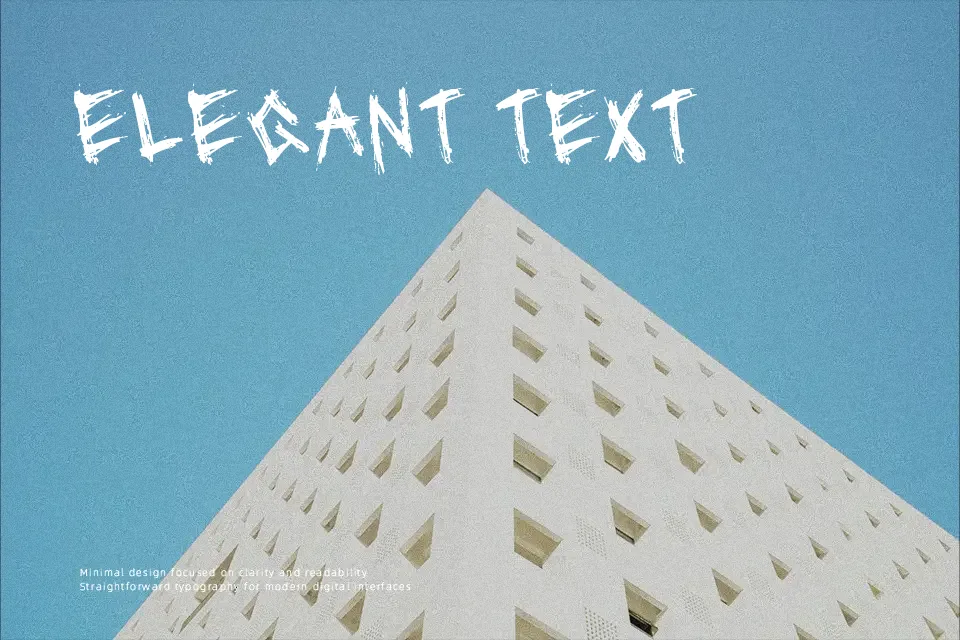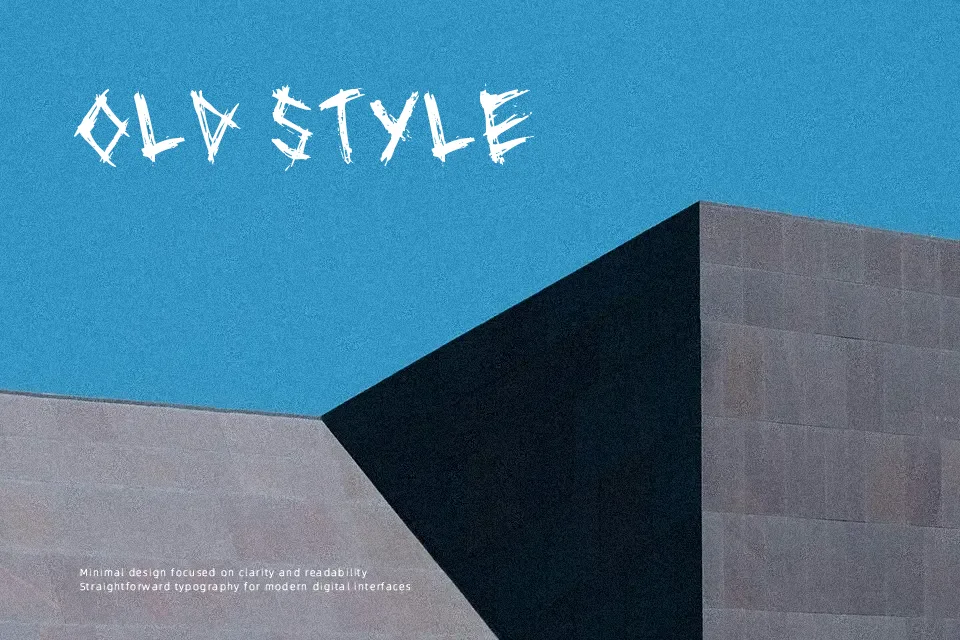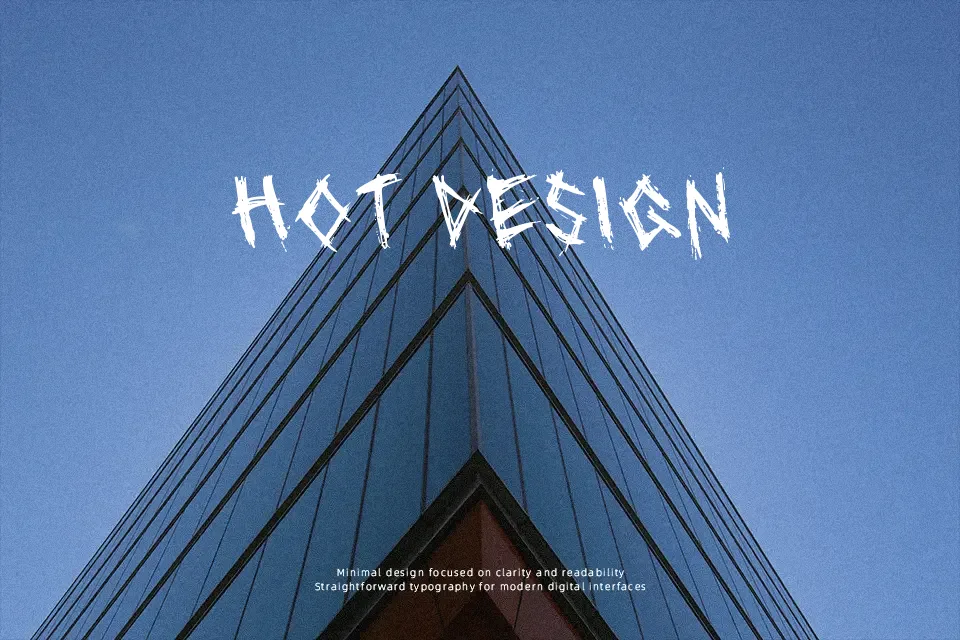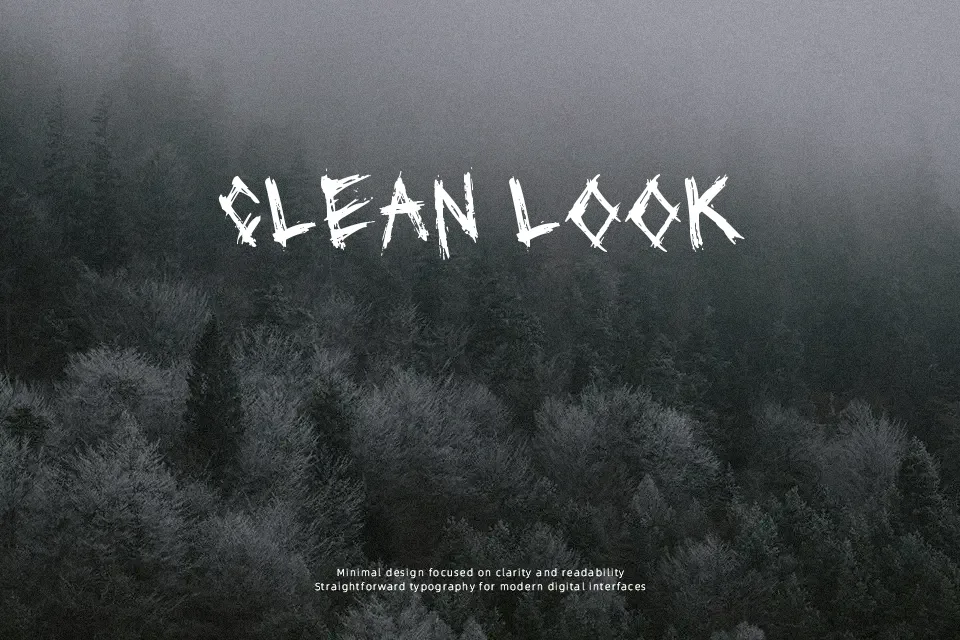
Blackcraft Font
Designed by GGBotNet
Blackcraft is an intensely dark, decorative display font that blends aggressive stroke structures with an ominous atmosphere. The letterforms feature jagged edges, sharp angles, and erratic weight distribution, mimicking the chaotic energy of horror and dark fantasy. With an impressive 570 glyphs, it offers extensive multilingual support across Latin and Cyrillic alphabets.
This typeface excels when commanding attention in large formats, making it highly effective for thriller movie posters, band logos, and immersive gaming graphics. Conversely, its complex and textured nature means it should be strictly avoided for lengthy body text, corporate presentations, or any scenario demanding rapid readability at smaller point sizes. The intricate detailing simply becomes illegible when scaled down.
Horror-themed event posters
Dark fantasy gaming titles
Heavy metal band logos
Alternative apparel graphics
Small body text or paragraphs
Corporate branding and reports
Clean, professional presentations
Perfect for film, gaming, and halloween, with a dark and decorative style.